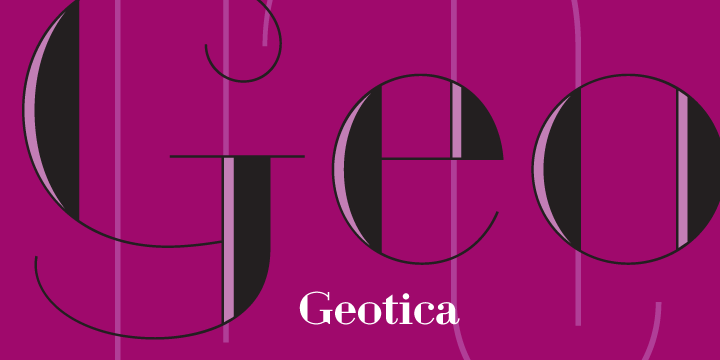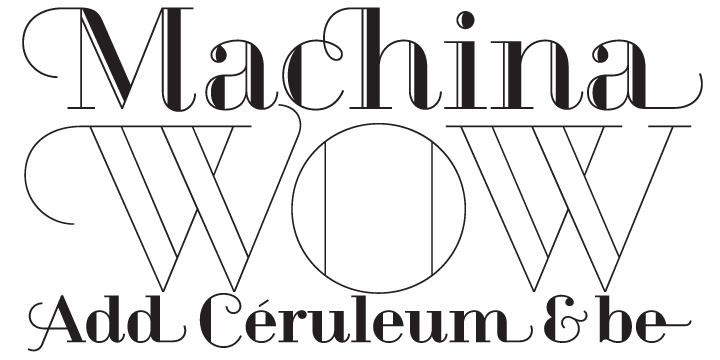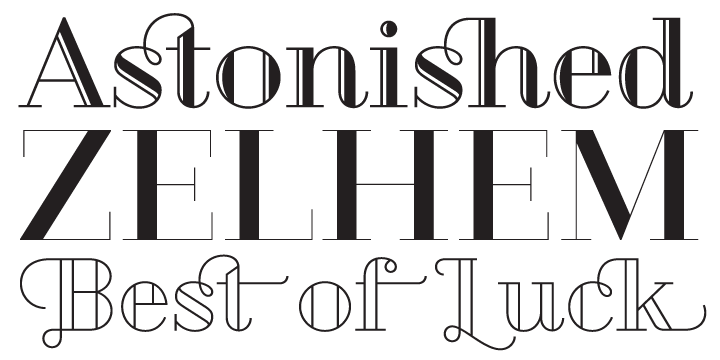
Geotica
The idea behind Geotica was to build a font out of -more or less- simple geometrical line elements. The open wire frame could then be left open or (partially) filled. Geotica comes in four different grades or line thicknesses (One, Two, Three and Four) so it's suitable for a broad use. Each grade has four styles and is loaded with swashes, final forms, lots of ligatures and ornaments.